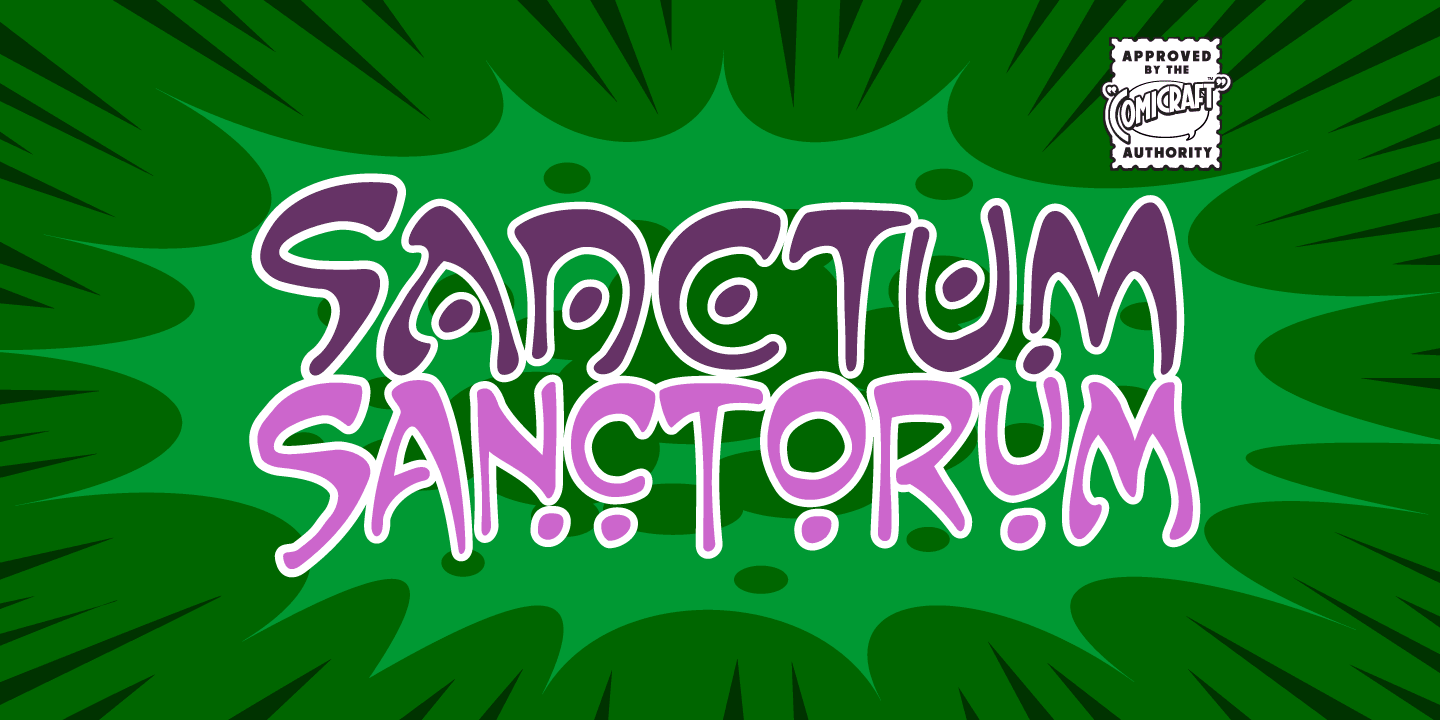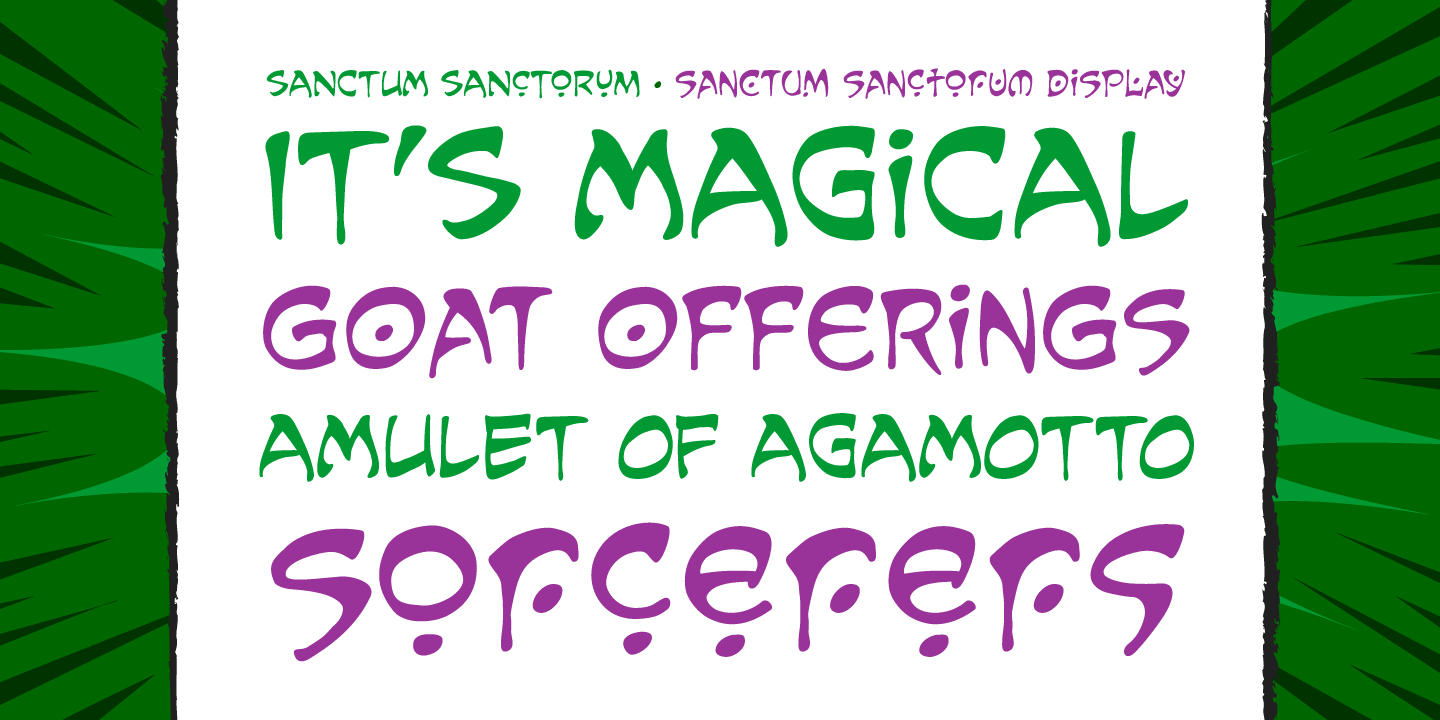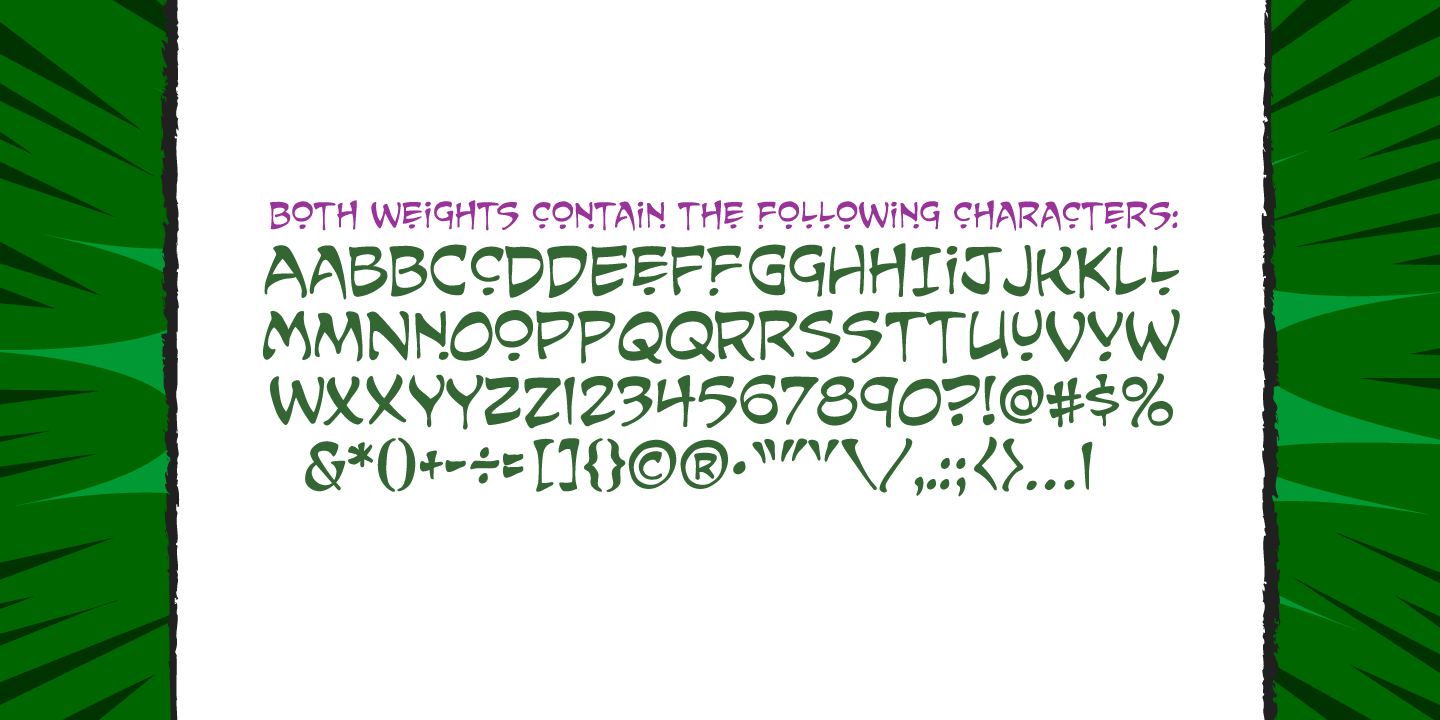
About the Sanctum Sanctorum Font
About Sanctum Sanctorum Font Family By the enchanted amulet of the all-seeing eye of Agamotto, by the Seven Moons of Munipoor and the beards of the eternal Vishanti, there are Strange Magicks in the Crimson Circles of Cyttorak that only a Sorcerer Supreme — a Master of the Mystic Art Nouveau — can comprehend. This font, transcribed by the Hoary Hand of the Host of Hoggoth, will admit you to the inner sanctum of The Ancient One.